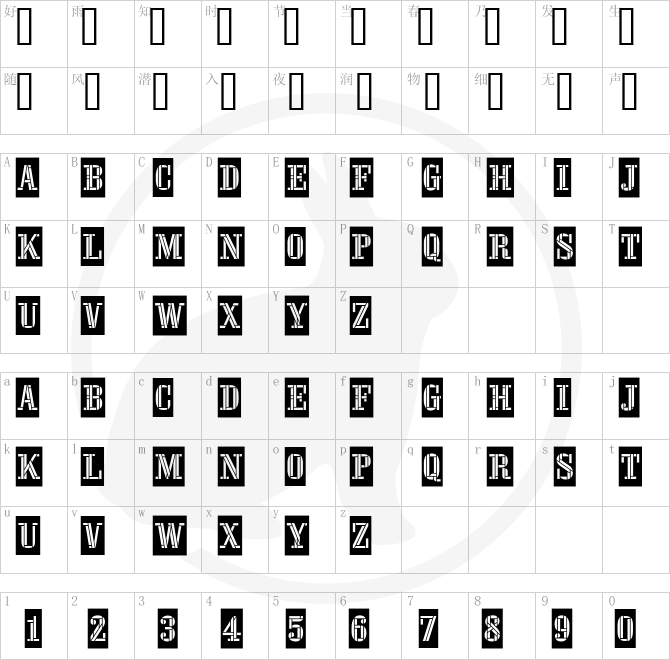
- Font Name:Oaktag Tiles
Oaktag-Tiles.ttf is a very beautiful artistic font, Oaktag-Tiles.ttf is widely used in the design and printing of various books and pictures,Oaktag-Tiles.ttf has a strong visual impact,Oaktag-Tiles.ttf is a commonly used font in newspapers, magazines and books, and is used in posters, e-commerce Poster design, store design, logo design, font design and other fields.Oaktag-Tiles.